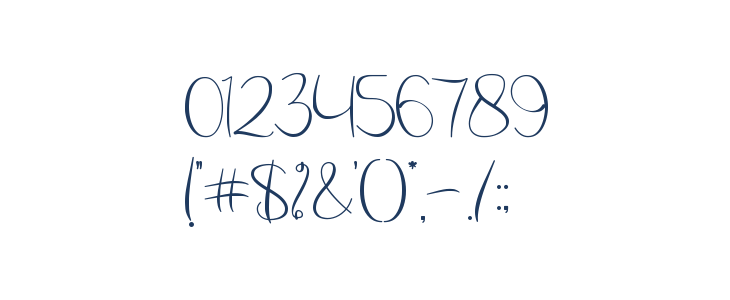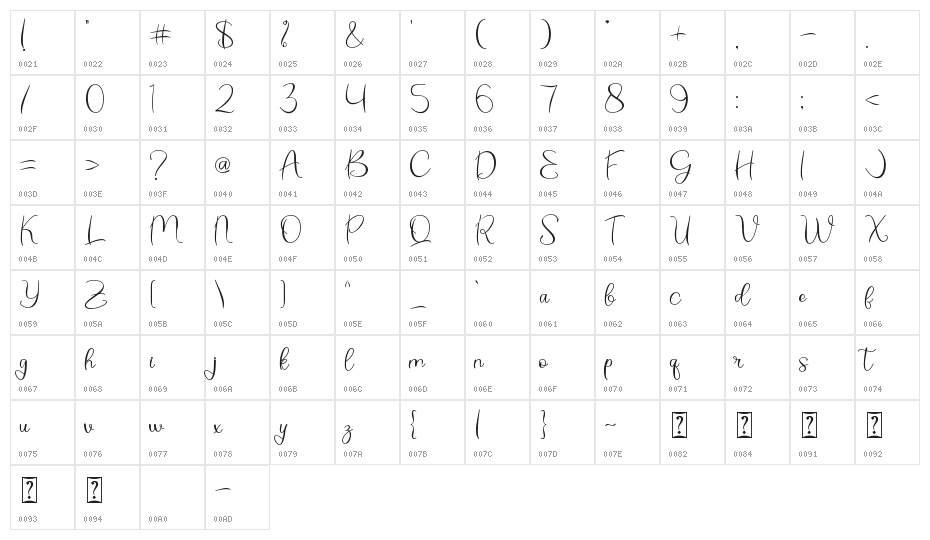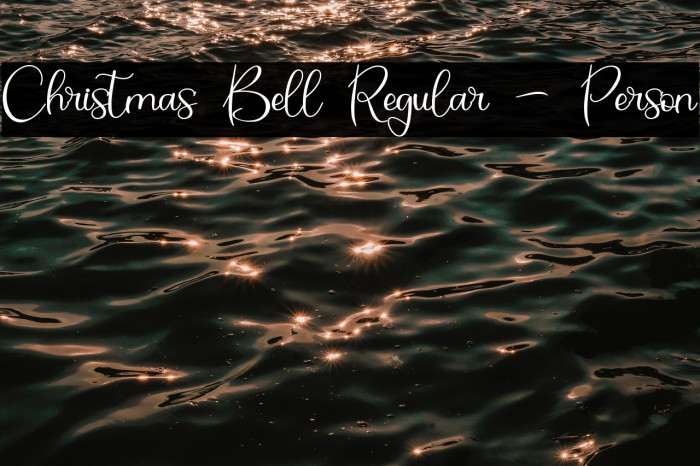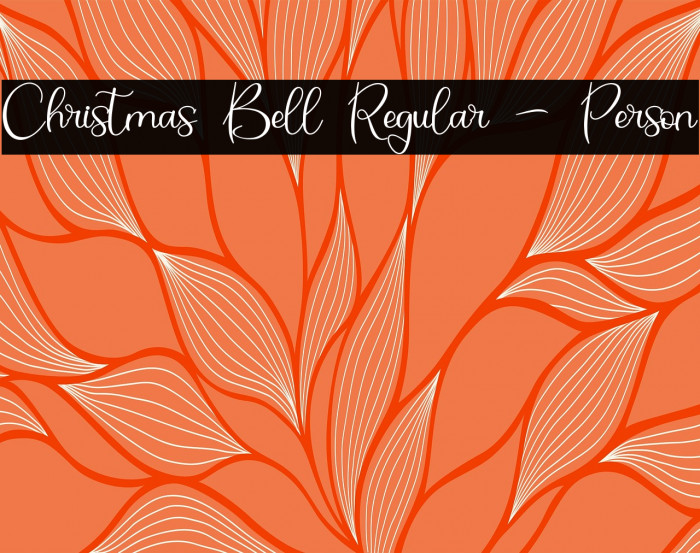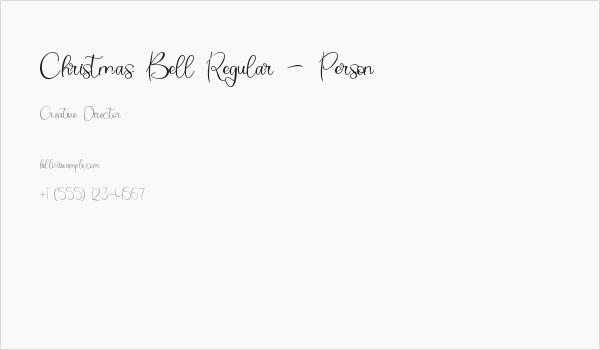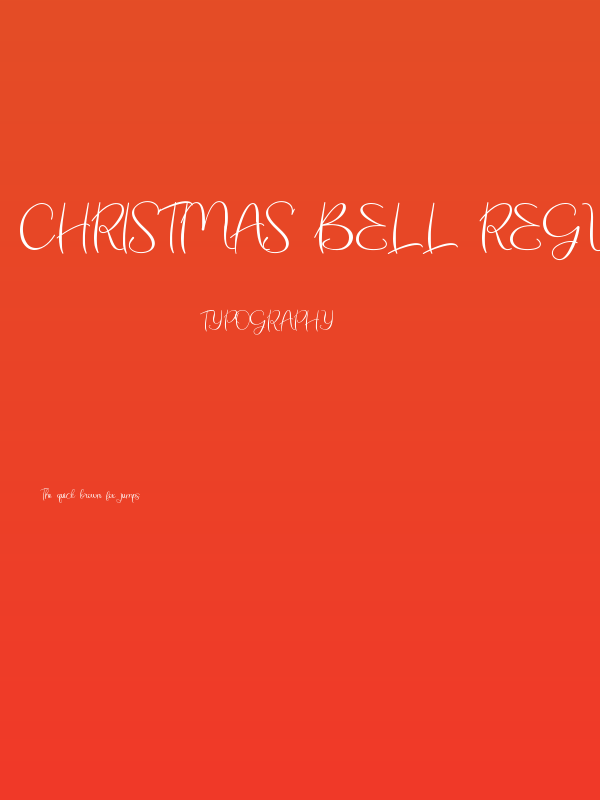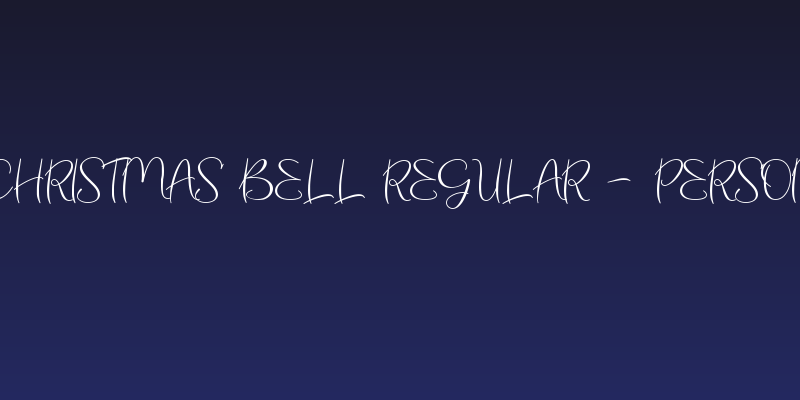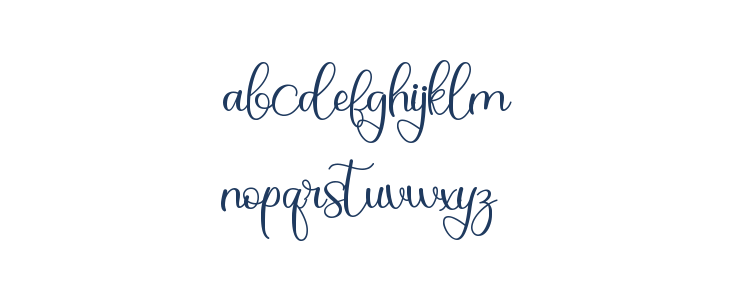
Christmas Bell Regular - Person Font
This font features an elegant and flowing script style, characterized by its smooth, cursive strokes and decorative flourishes. The uppercase letters are tall and graceful, with sweeping lines that give a sense of movement and fluidity. The lowercase letters maintain a consistent style, with rounded forms and subtle loops that enhance its handwritten appearance. The numerals are distinct and maintain the same flowing style, making them easily readable. Special characters are creatively integrated, adding to the font's overall charm. This font exudes a festive and whimsical feel, making it ideal for holiday-themed projects.
| Proposed Projects | Ideal for holiday cards, invitations, festive branding, and decorative posters. |